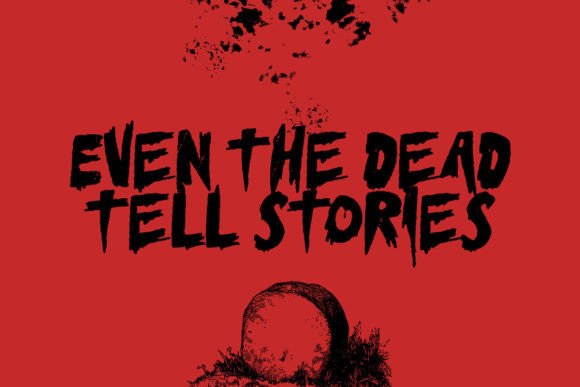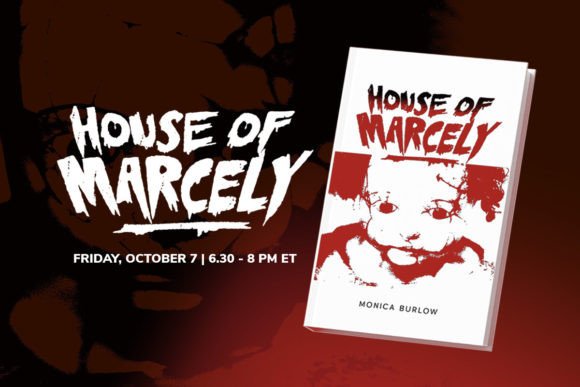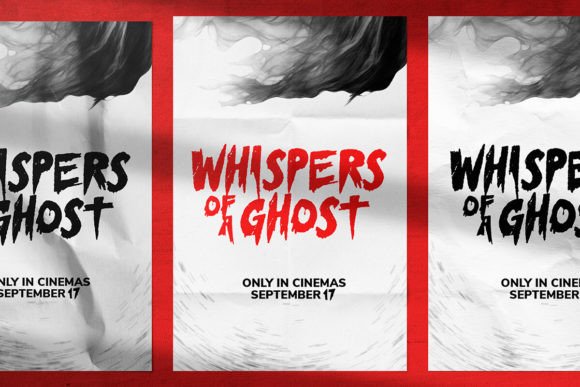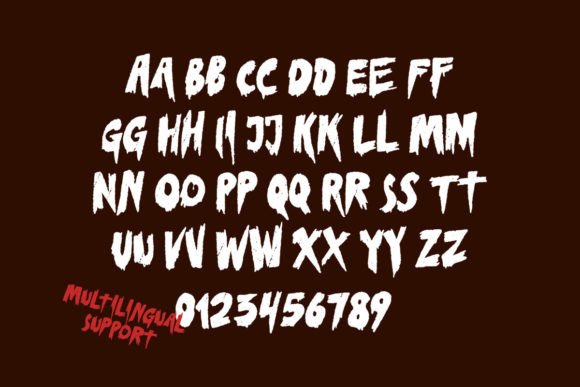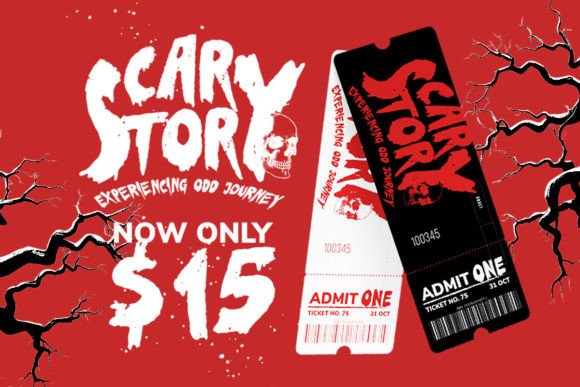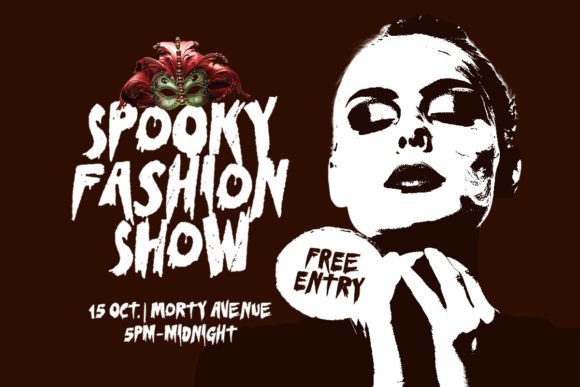
Introduction to Horier Time Font
Unveil the depths of terror and embrace the macabre with this latest font creation, Horier Time; a mesmerizing bloody horror display font.
Prepare to embark on a spine-tingling journey into the darkest realms of design, where fear and fascination intertwine .